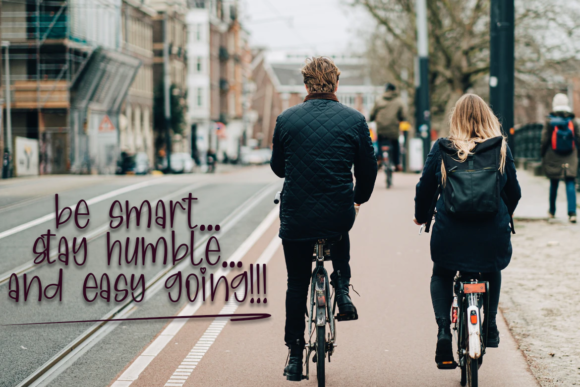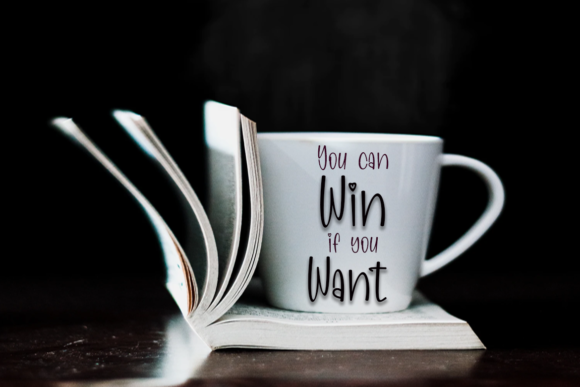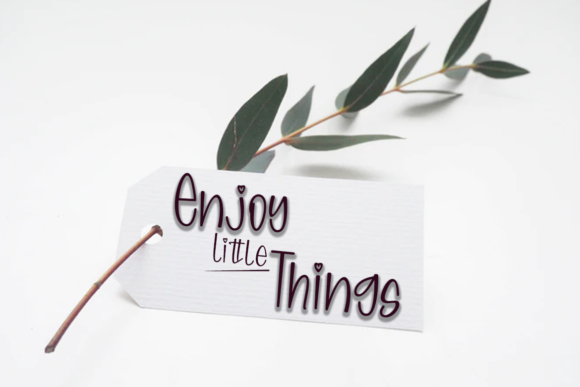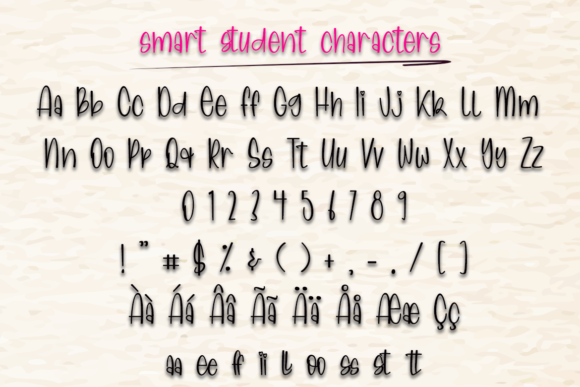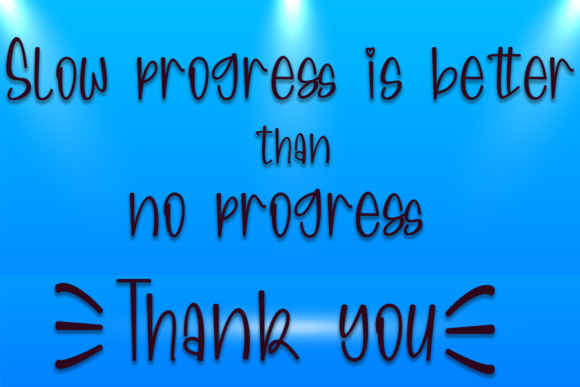
Introduction to Smart Student Font
Remember that moment when you stumbled upon the perfect design element that transformed your entire project? For many creatives, it’s a feeling of pure joy and excitement. That’s exactly what the Smart Student Font aims to evoke – a sense of creative freedom and limitless possibilities.
As a valuable design resource, the Smart Student Font offers a unique blend of simplicity and elegance, making it an ideal choice for a wide range of creative projects. Its high-quality design and transparent background ensure seamless integration into any visual composition, from branding materials to digital art.
Key Features of Smart Student Font
- High-quality design resource: The Smart Student Font is designed to provide a professional and modern look for any creative project.
- Unique characteristics: The Smart Student Font features a unique blend of modern and classic design elements, making it an excellent choice for designers looking to add some personality to their projects.
Honest Review: Smart Student Font
As a designer, I’m always on the lookout for high-quality design resources to help bring my creative projects to life. Recently, I stumbled upon the Smart Student Font, which promises to deliver a professional look without breaking the bank. Let’s dive in and see if it lives up to the hype!
What works well: ✨ I was impressed by the clean and modern design of the Smart Student Font. The font is highly legible and suitable for a wide range of applications, from digital interfaces to print materials. The transparent background feature is also a nice touch, making it easy to use in various design scenarios.
Overall, I’m impressed with the Smart Student Font. It’s a great option for designers on a budget or those who need a reliable, high-quality font for a creative project. Just be aware of its limitations and consider using it in conjunction with other fonts to achieve the desired look.
- Highly legible and modern design
- Limited customization options
- Only a single weight available
The Smart Student Font is suitable for a variety of projects, including academic papers, business reports, and creative projects such as posters and flyers. It is also a great resource for students who want to create high-quality presentations and documents.